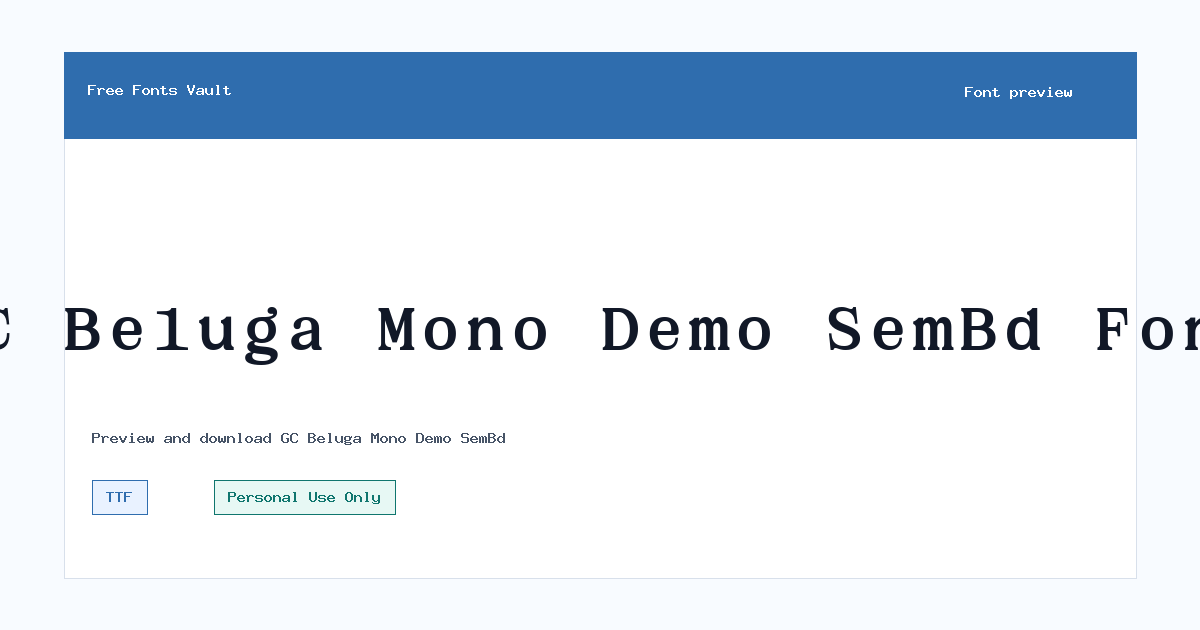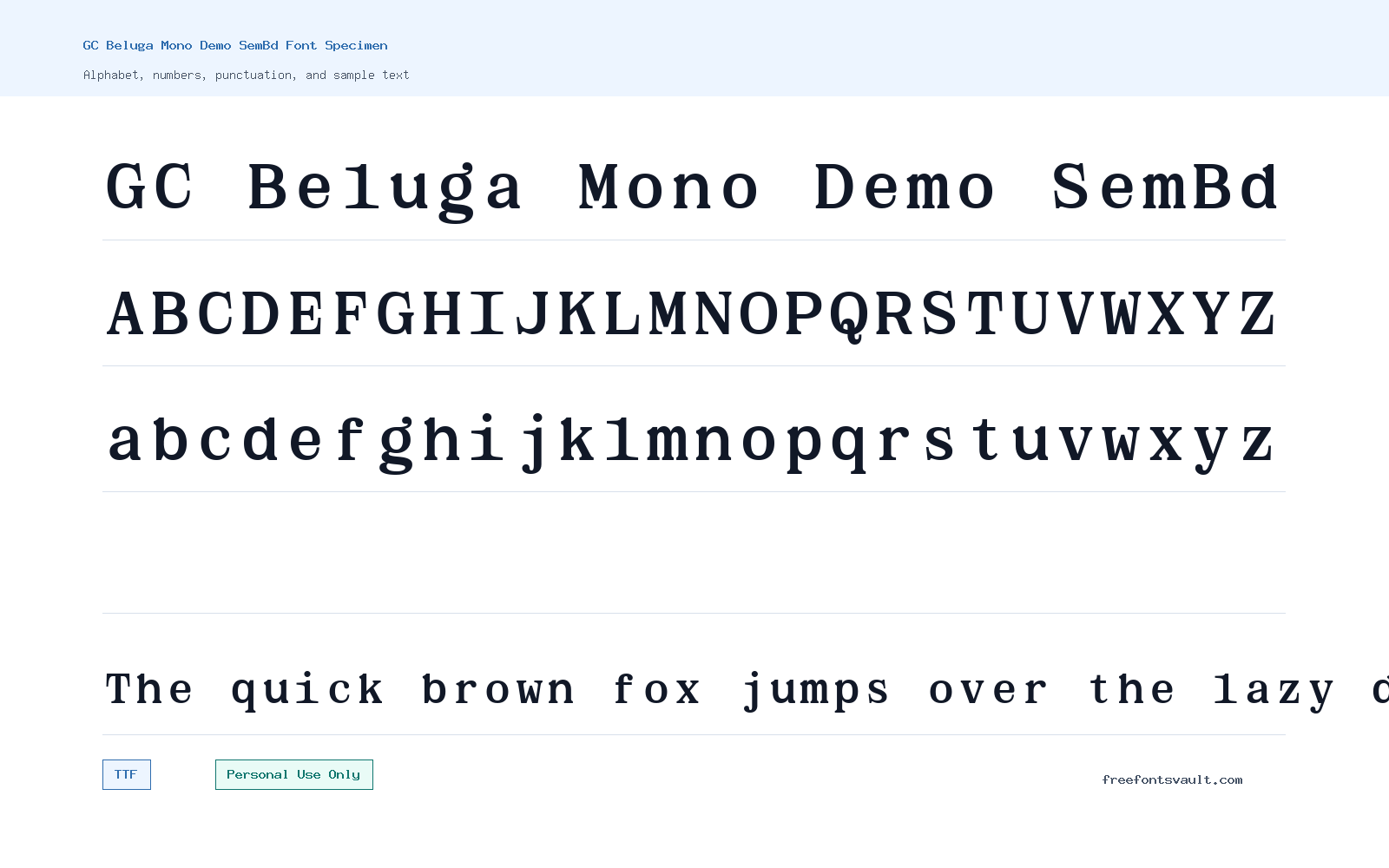
GC Beluga Mono Demo SemBd
- Designer Dwi Indah Fadhilatul Amanah by Glyphonic
GC Beluga Mono Demo SemBd is a semi-bold demo font from Glyphonic, credited to Dwi Indah Fadhilatul Amanah. It is a personal-use-only font, so it works best for private previews, concept drafts, and non-commercial design testing.
GC Beluga Mono Demo SemBd is useful when you want a heavier, structured font style for short pieces of text. The “SemiBold” naming and 700 weight make it better suited to display settings than long paragraphs. Use it for words that need presence: a poster title, a logo concept, a badge, a label, a social graphic heading, or a web mockup headline. Because this is a demo font, it is especially helpful for checking the mood of a design before deciding whether you need a full licensed version for client or commercial work.
For best results, test this font with real words rather than only alphabet samples. Try brand names, two-line poster headings, short navigation labels, and compact call-to-action text. If the font spacing feels strong or mechanical in your layout, give it room to breathe with wider letter spacing or extra line height. It may pair well with a simple sans serif for body text, especially in web mockups, product cards, and presentation layouts. Avoid using it for dense reading unless your preview shows comfortable spacing at smaller sizes.
- Semi-bold 700 weight for stronger headings and short display text
- Good candidate for logo drafts, poster titles, labels, and interface mockup headings
- Personal logo concepts and brand direction tests
- Poster titles, cover mockups, and event graphics
- Website hero text and landing page mockup headlines
- Social media graphics with short, bold wording
- Packaging labels, stickers, badges, and compact display text
- Typography experiments where a semi-bold mono-style look is needed
GC Beluga Mono Demo SemBd is credited to Dwi Indah Fadhilatul Amanah by Glyphonic, with Glyphonic listed as the foundry.
Use this font where the text is short and important. In logo work, test the exact brand name in uppercase, lowercase, and mixed case before choosing it. For posters, keep the font at a display size and balance it with a quieter supporting typeface. In web mockups, use it for headings or labels rather than body copy, and check how the TTF renders on the target platform. If your project will be public or commercial, settle the license first so the design does not need to be rebuilt later.
What kind of projects is this font best for?
It is best for short display text such as logo drafts, poster titles, social graphics, web mockup headlines, labels, and personal design experiments.
Is this a good font for body text?
It is better to test it as a heading or short-text font first. The semi-bold weight can become heavy in long paragraphs, so pair it with a simpler body font for readability.
What should I pair it with?
Pair it with a clean sans serif or a neutral text face. Let GC Beluga Mono Demo SemBd handle the headline or logo-style wording, and use the second font for longer descriptions, menus, or captions.